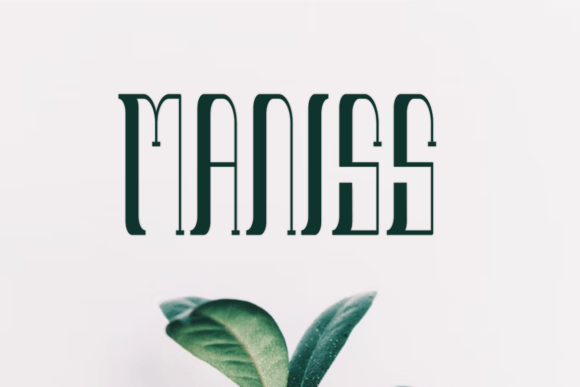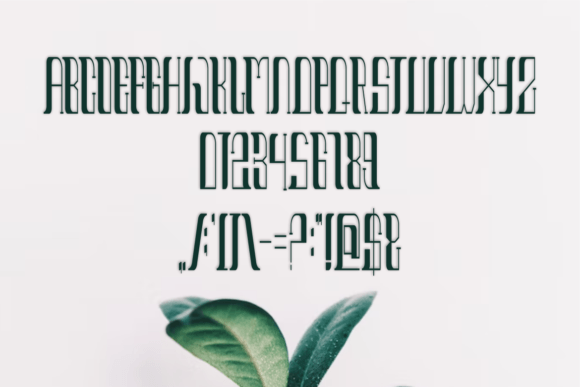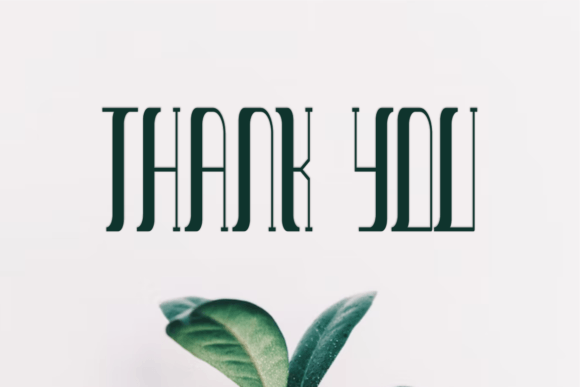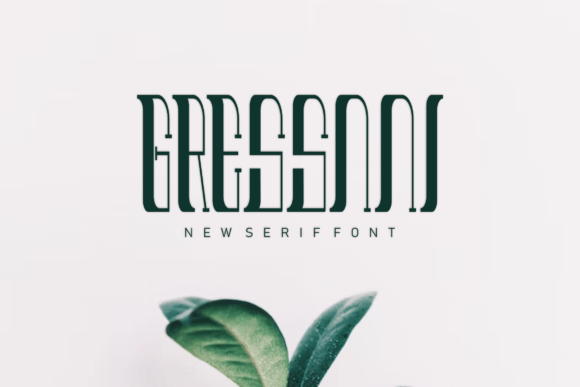
Introduction to Gressnni Font
Gressnni is a lovely serif font that feels beautiful, classy, elegant, and modern.
This font is perfectly suited for a wide variety of projects, such as signature, stationery, logo, wedding, typography quotes, magazine or book cover, website header, clothing, branding, packaging design, and more .
Key Features of Gressnni Font